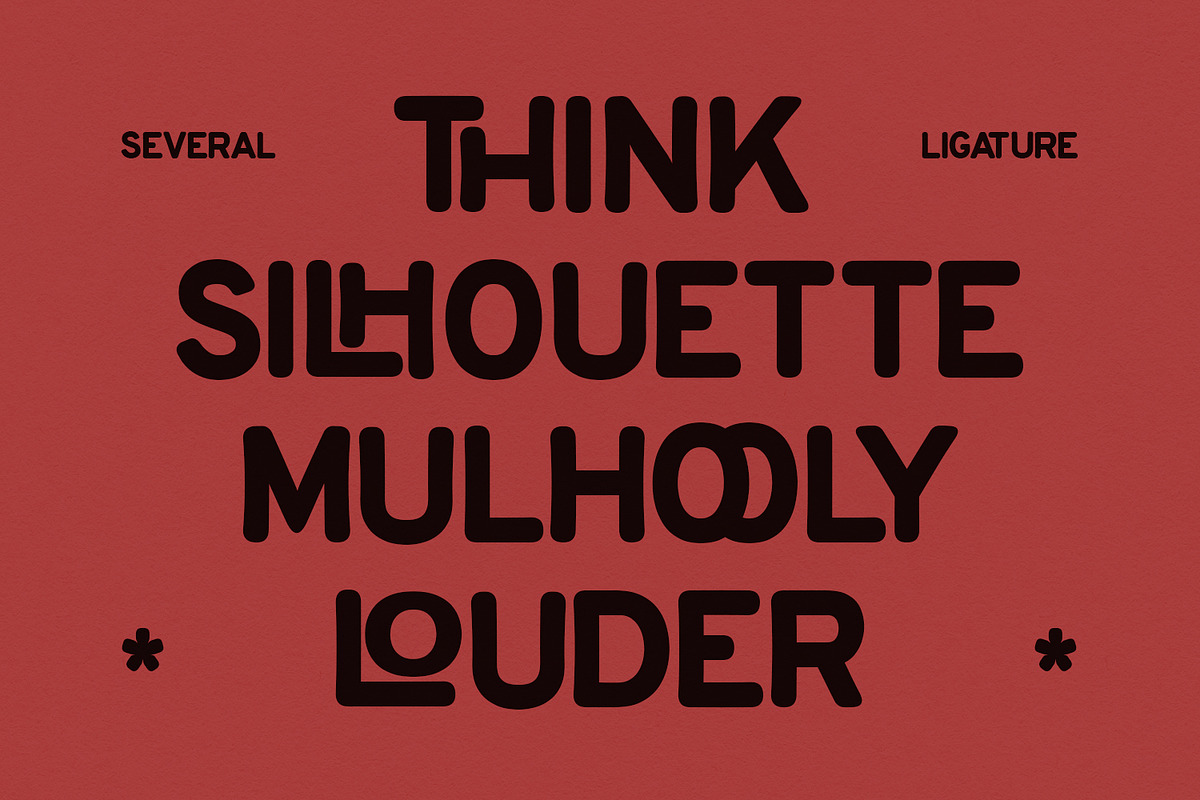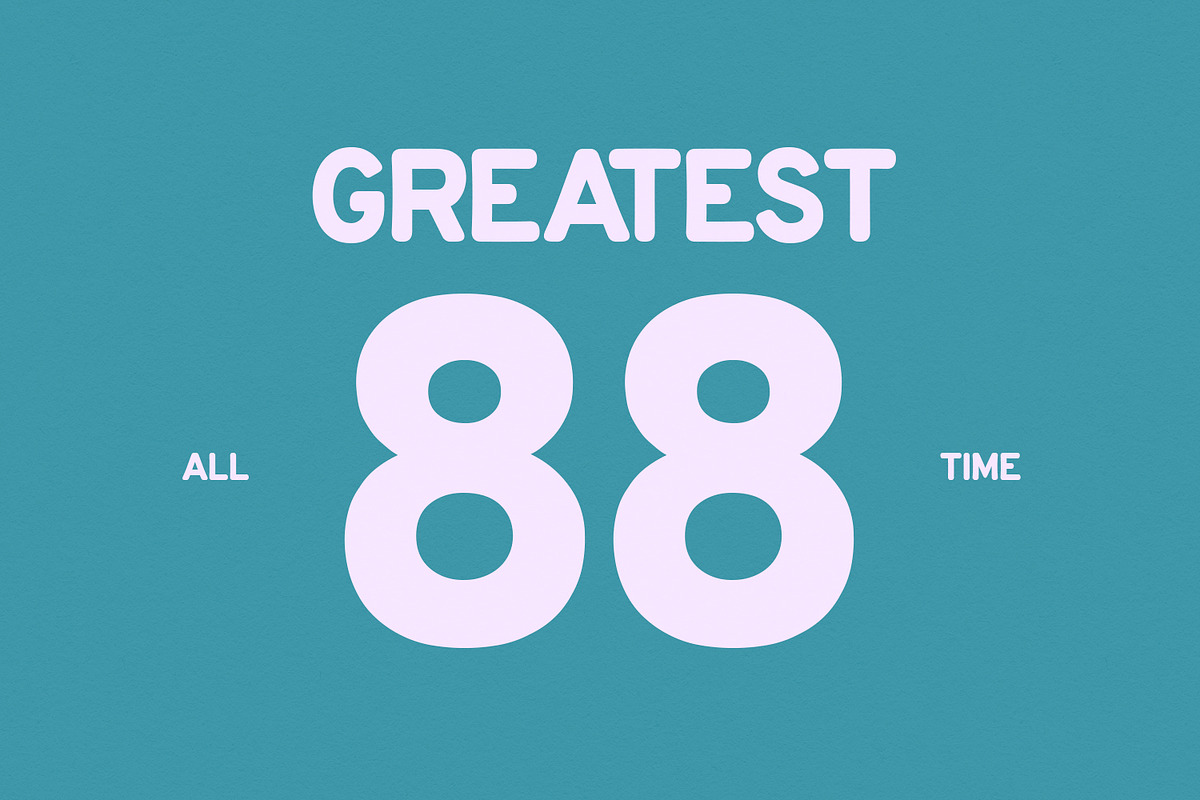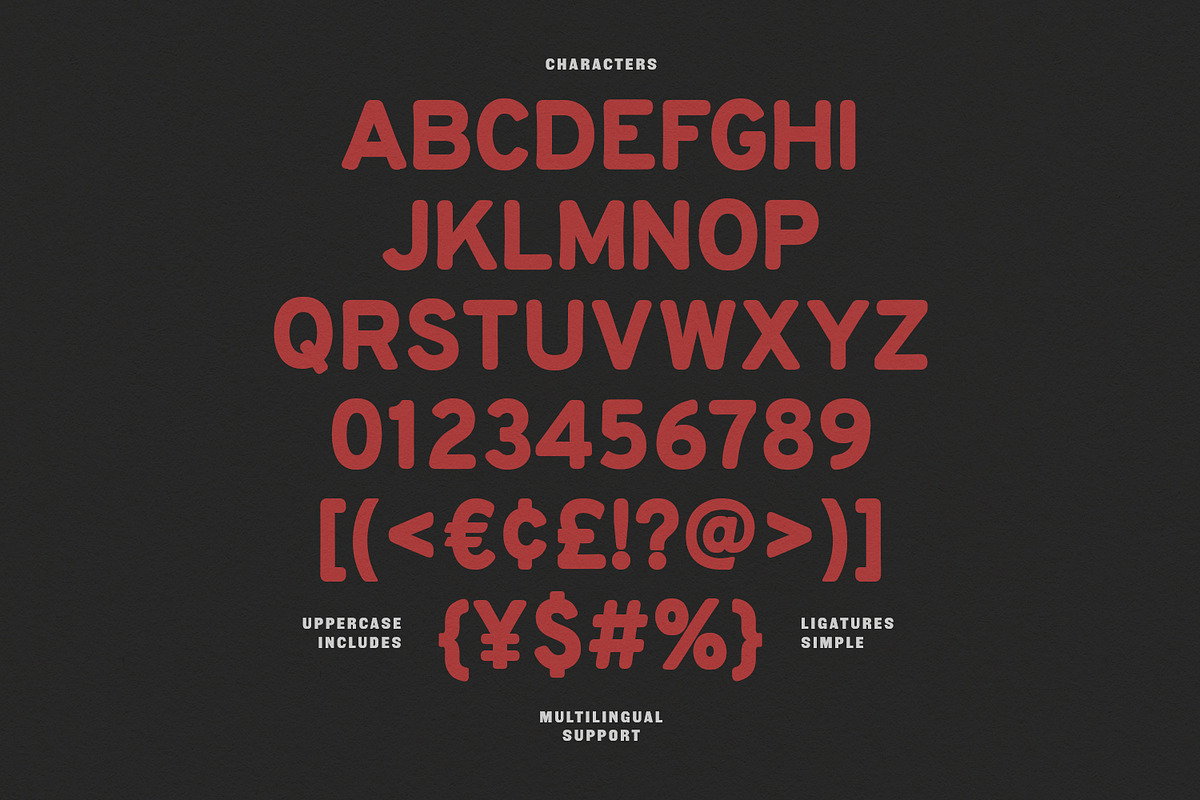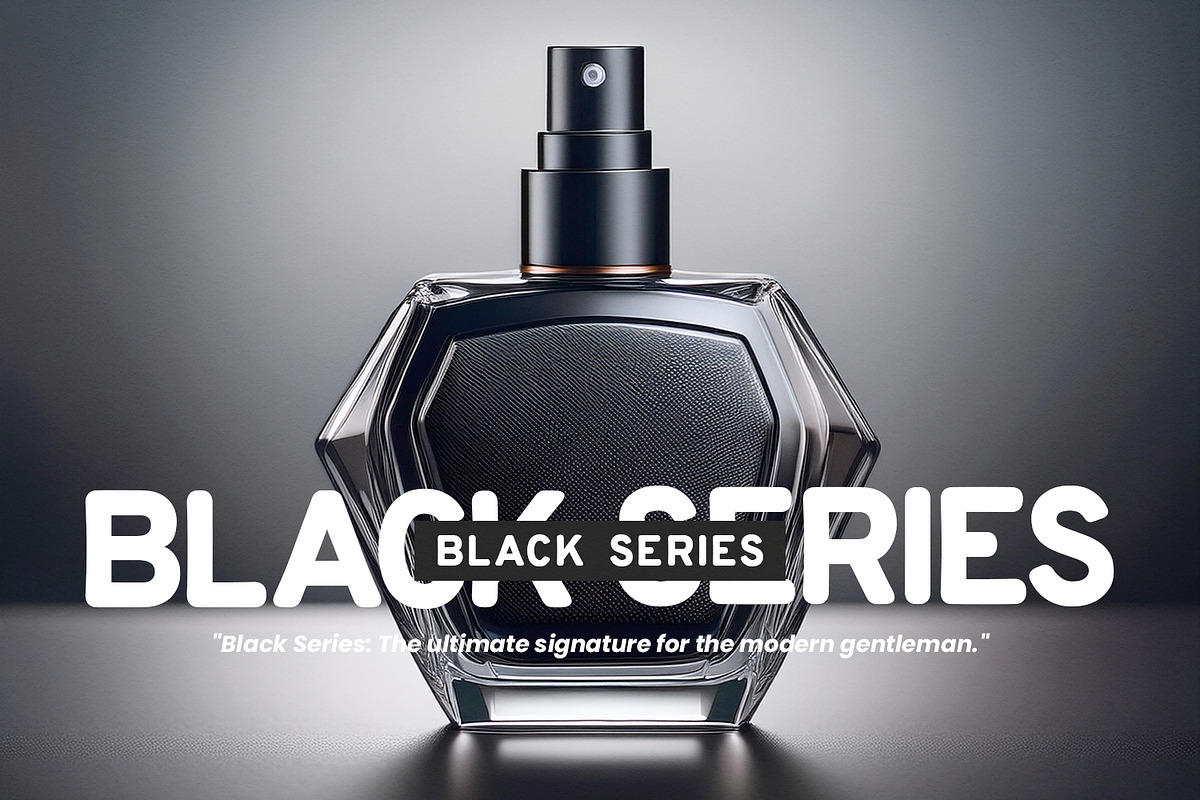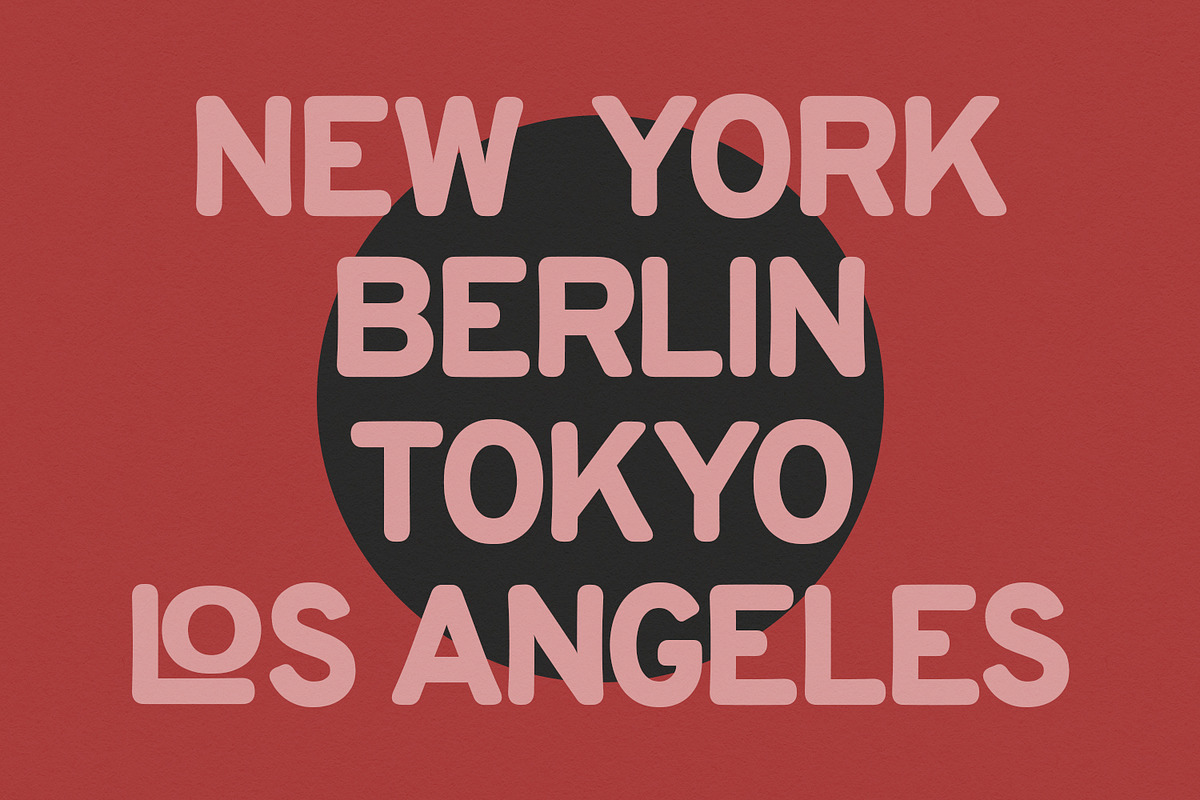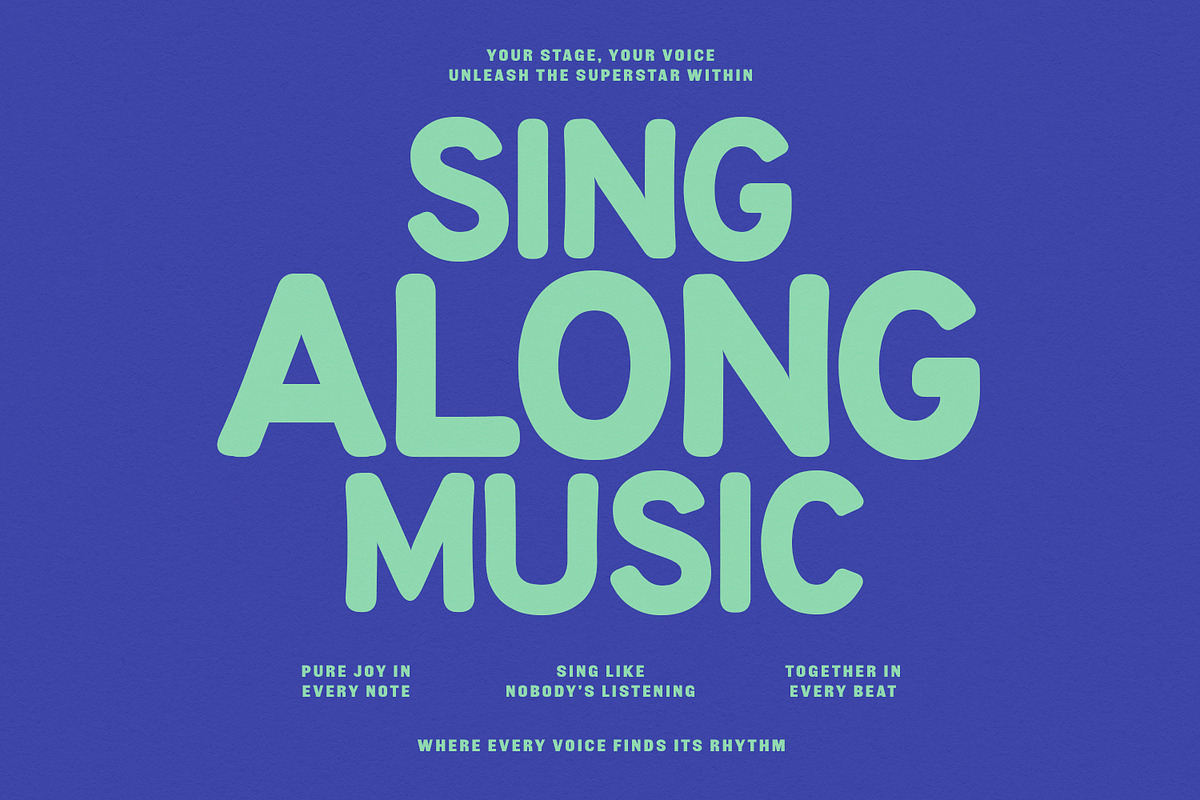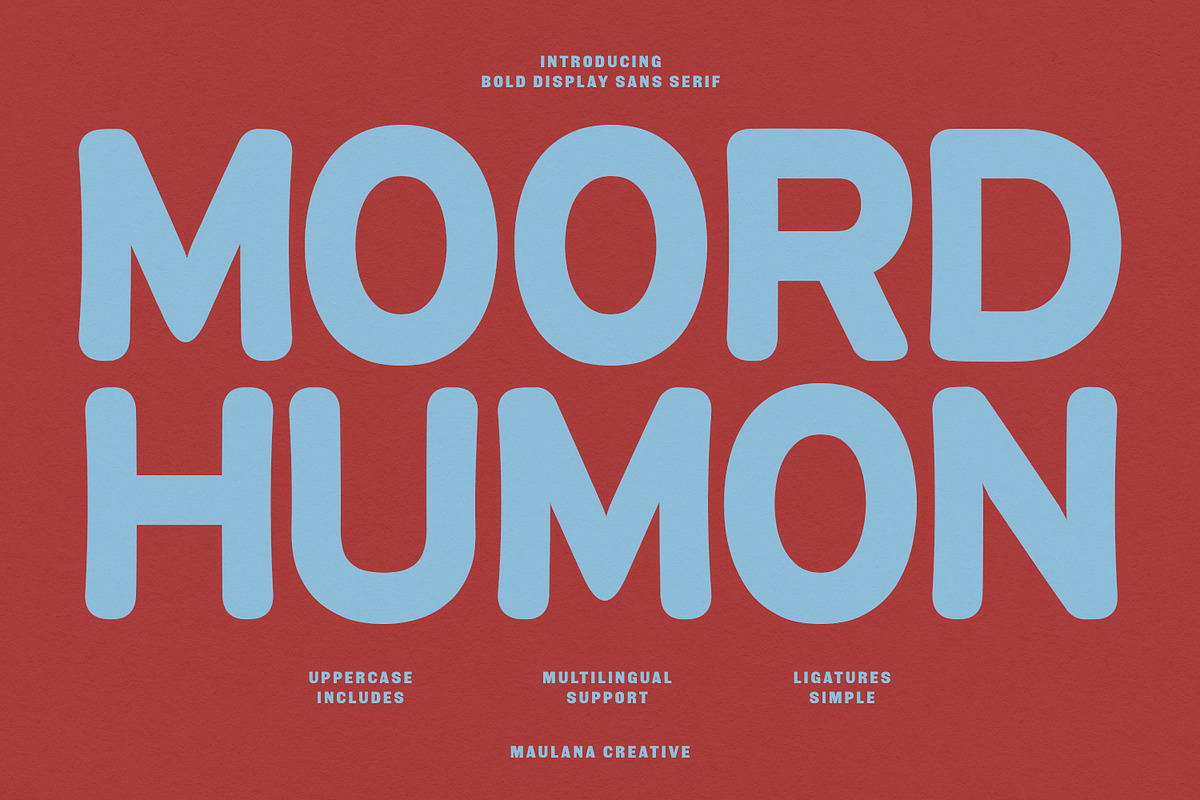
Moord Humon Bold Display Sans Serif
Moord Humon is a heavy-weight display font characterized by its playful, rounded terminals and organic, hand-drawn feel. Designed for maximum impact, this typeface balances a friendly personality with a strong, solid presence. It features unique interlocking ligatures and a distinct uppercase set that provides a custom, bespoke look to any visual composition. Whether used for bold headlines, modern branding, or dynamic digital media, Moord Humon delivers a sense of warmth and modern creativity through its soft edges and sturdy proportions.